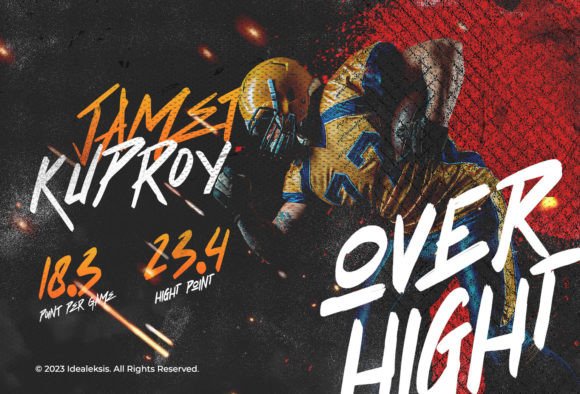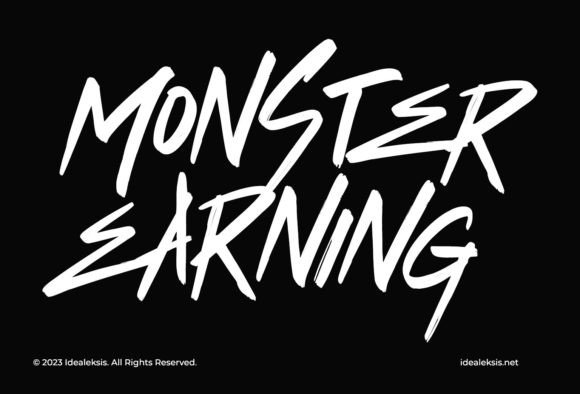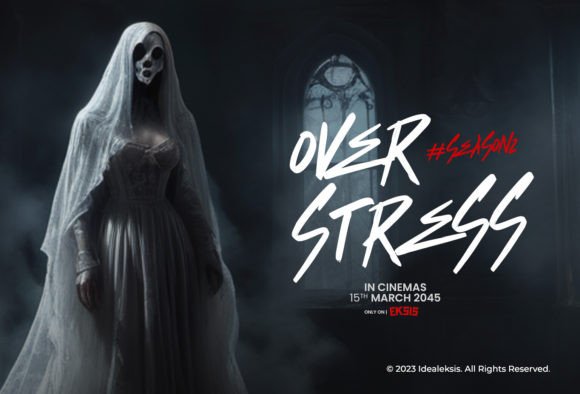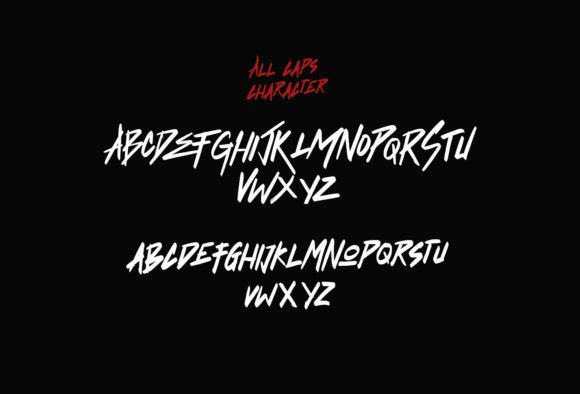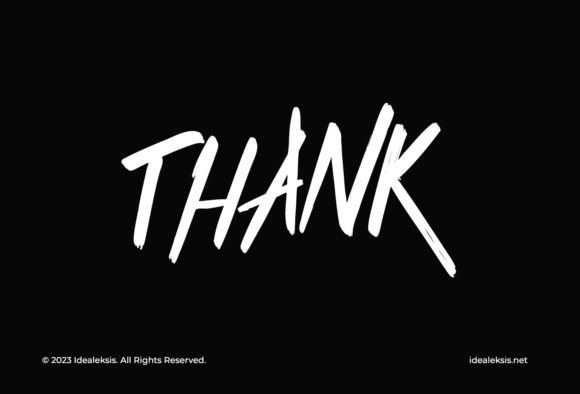
Crack Over Font: Unleashing the Sinister Elegance in Design
In the realm of typography, fonts play a pivotal role in setting the tone and atmosphere of a design project. For those seeking to infuse their creations with a sense of mystery, darkness, and an edge of menace, the “Crack Over” font stands out as a hauntingly elegant solution. This article delves into the unique characteristics of the “Crack Over” font, exploring its design, applications, and the distinctive aura it brings to projects.
The Essence of “Crack Over” Font
“Crack Over” is not just another font; it’s a haunting brush font that captures the essence of sinister elegance. Its design is marked by sharp, menacing strokes that seem to leap off the page, exuding an air of darkness and foreboding. This font is meticulously crafted to evoke an aura that is both captivating and unsettling, making it an ideal choice for projects that require a spine-chilling and mysterious ambiance.
The defining feature of the “Crack Over” font is its brush strokes, which are intentionally designed to culminate in pointed edges. This distinctive design element adds an extra layer of intensity and drama to the text, setting it apart from more conventional fonts. The sharpness of the strokes, combined with the fluidity of the brushwork, creates a visually striking effect that draws the viewer’s eye.
Applications of “Crack Over” Font
The versatility of the “Crack Over” font makes it suitable for a wide range of design projects. Here are some of the areas where this font truly shines:
- Movie and Theater Posters: For films, plays, or musicals that aim to convey a dark, mysterious, or horror theme, “Crack Over” can add that crucial element of allure and intrigue.
- Logo Design: Businesses or brands looking to establish a bold, edgy, or enigmatic identity can leverage the unique aesthetic of “Crack Over”.
- Invitations and Announcements: For events that promise to be out of the ordinary, such as Halloween parties, mystery dinners, or avant-garde art exhibitions, this font can set the tone effectively.
- Digital Content: Bloggers, YouTubers, or content creators focusing on mystery, horror, or the unexplained can use “Crack Over” to enhance their brand’s visual identity.
Why Choose “Crack Over”?
Choosing a font for a project involves more than just aesthetic preference; it’s about finding the right tool to communicate a message or evoke a specific emotional response. Here are reasons why “Crack Over” stands out:
- Uniqueness: In a sea of commonly used fonts, “Crack Over” offers a distinctive look that can make any project stand out.
- Versatility: Despite its strong associations with dark themes, the font’s versatility allows it to be adapted across various design contexts.
- Emotional Impact: The ability of “Crack Over” to evoke a strong emotional response makes it a powerful tool in the hands of designers.
Tips for Using “Crack Over” Effectively
To maximize the impact of the “Crack Over” font, consider the following tips:
- Context is Key: Ensure that the use of “Crack Over” aligns with the project’s overall theme and message.
- Legibility: While the font’s drama is a major selling point, ensure that it remains legible, especially in smaller sizes or when used for body text.
- Combine Thoughtfully: When pairing “Crack Over” with other fonts, choose ones that complement its dramatic and bold nature.
| Author | Idealeksis |
“Crack Over” is more than just a font; it’s a design element that can transform the atmosphere of a project. Its unique blend of elegance and menace makes it a valuable asset for designers looking to imbue their work with a sense of mystery and intrigue. Whether you’re crafting a horror movie poster, designing a logo with an edge, or simply looking to add a touch of drama to your content, “Crack Over” offers a compelling choice that promises to leave a lasting impression.